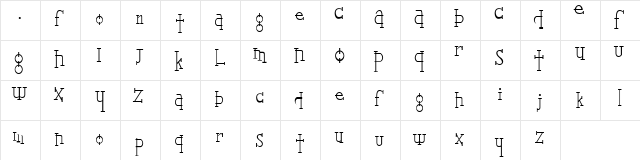
Leger Light
Design Context for Leger Typeface
Leger takes a measured approach to typography — its balanced proportions and neutral character make it a reliable workhorse for both digital and print work. Its slender proportions lend an understated elegance to any composition.
Pro Tip: Pair Leger with a font of contrasting weight or personality to build a more expressive typographic hierarchy.